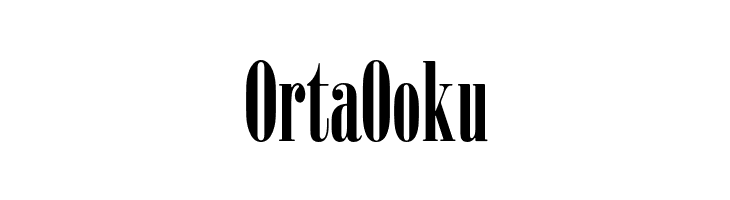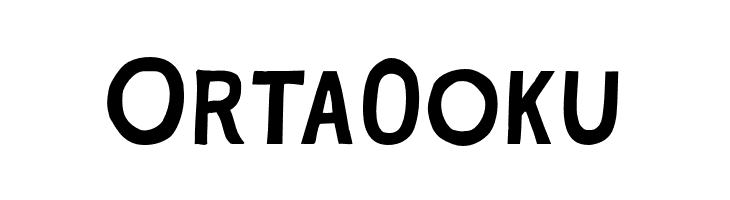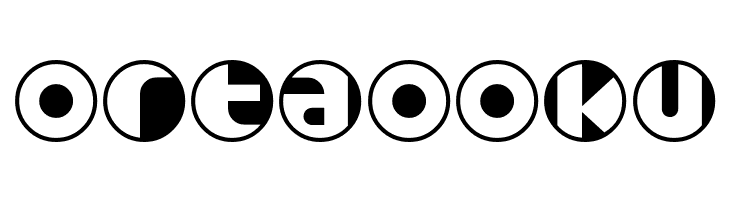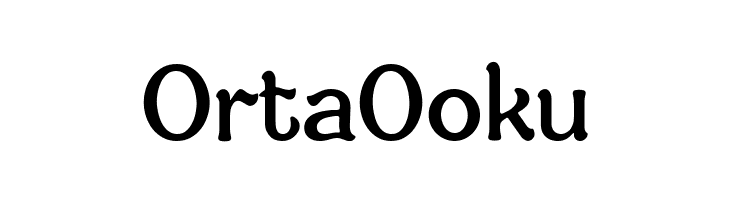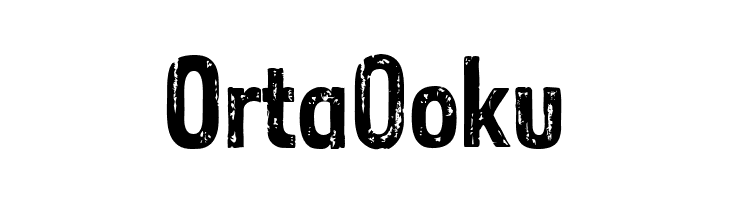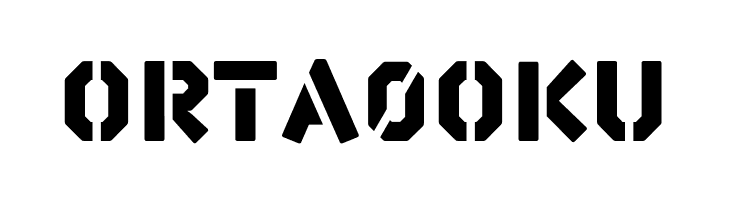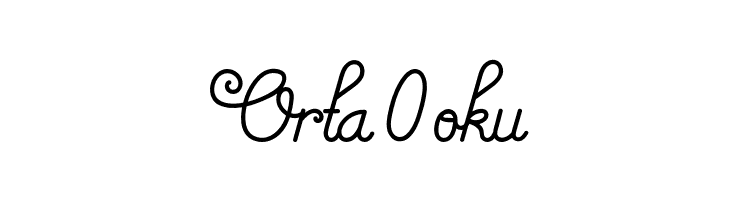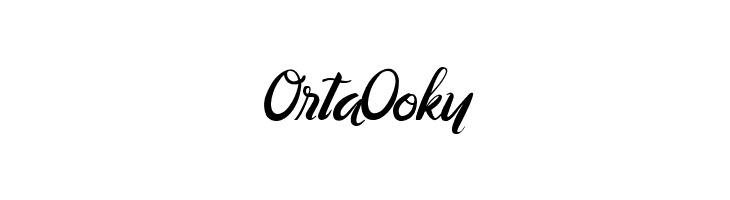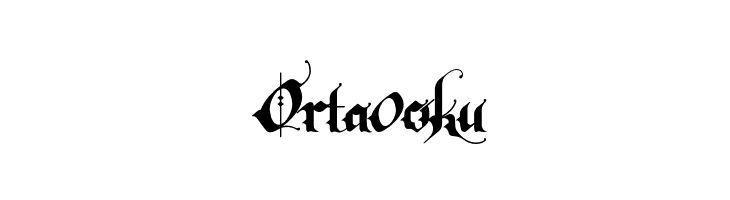
• Ranania Regular
A fluid and elegant script font with a modern yet classic appeal.
• RaquellaMonoscript
An elegant script font with decorative swirls and a whimsical style.
• RayJohnson
A bold, modern font with a vintage touch, featuring slightly condensed uppercase letters.
• Rhapsody Black Letter Regular
An ornate blackletter font with intricate detailing and dramatic flourishes.
• RhapsodyBlackLetter
An ornate Blackletter font with intricate details and dramatic flourishes.
• Roundel
A bold, circular geometric font with high contrast and modern style.
• SansCulottes
A bold, distressed font with a rugged, vintage look.
• Sardonyx
A bold, high-contrast font with a vintage, decorative style.
• Savor
A playful, rounded font with smooth curves and a friendly appearance.
• SilexStencil-Basic